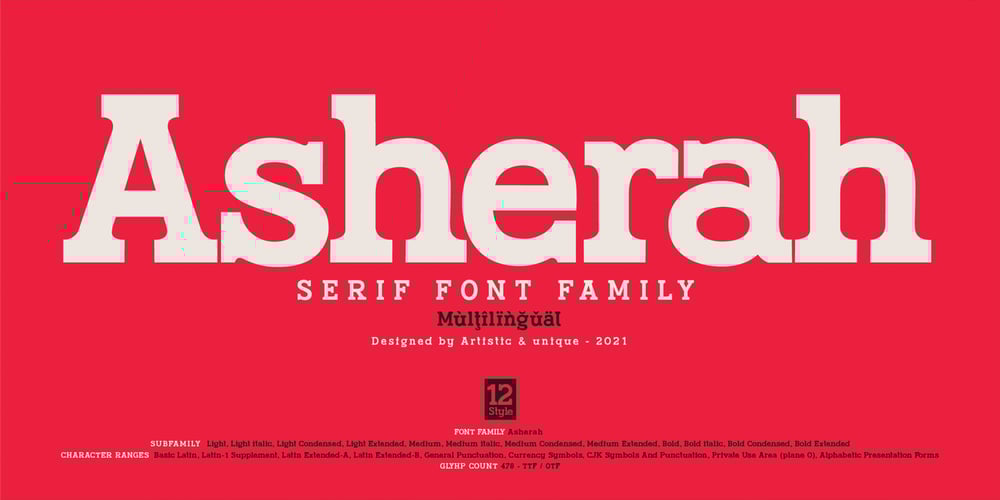
Asherah
Asherah font
Asherah Font Family was designed by Osman Taner Kucukgenc and published by Artisticandunique. Asherah contains 12 styles and family package options. Asherah – Serif font family – Multilingual support, 12 Style – OTFAsherah is a modern serif font family. This font family is multilingual supported and 12 different styles. With different character designs in its structure, it can meet your needs in innovative pursuits. It has a timeless structure where you can create your modern-elegant or classic design alternatives.Well suited for books and magazines, editorials, headlines, websites, logos, branding, advertising and more. Asherah font family can meet your needs in all modern and classic creative projects.CHARACTER RANGES : Basic Latin, Latin-1 Supplement, Latin Extended-A, Latin Extended-B, General Punctuation, Currency Symbols, CJK Symbols And Punctuation, Private Use Area (plane 0), Alphabetic Presentation Forms With this font you can create your unique designs.If you have a question, please contact me.Have a good time.